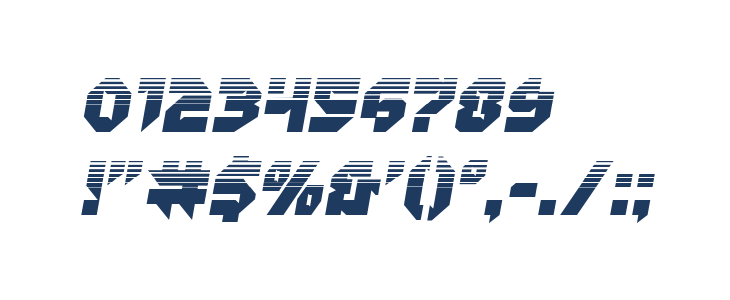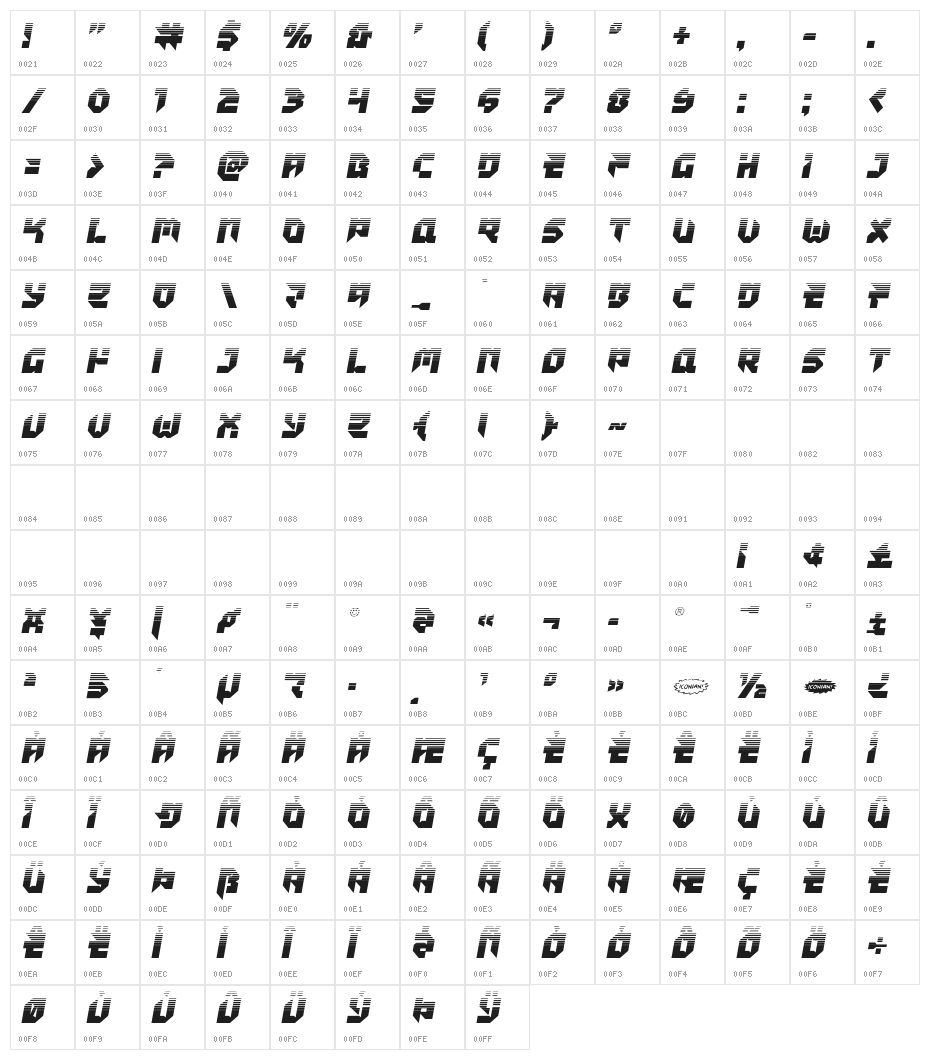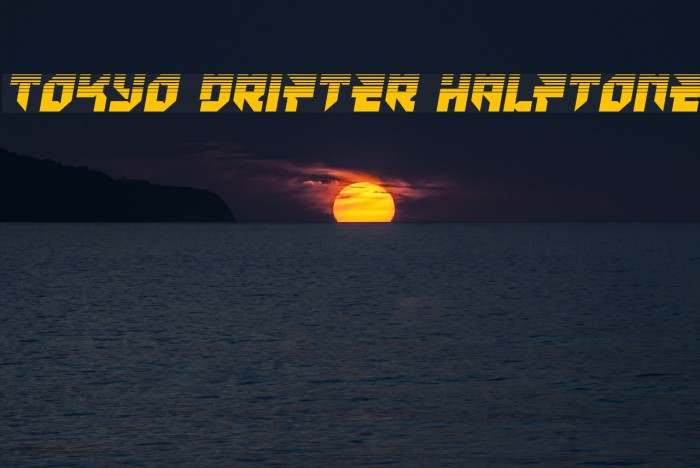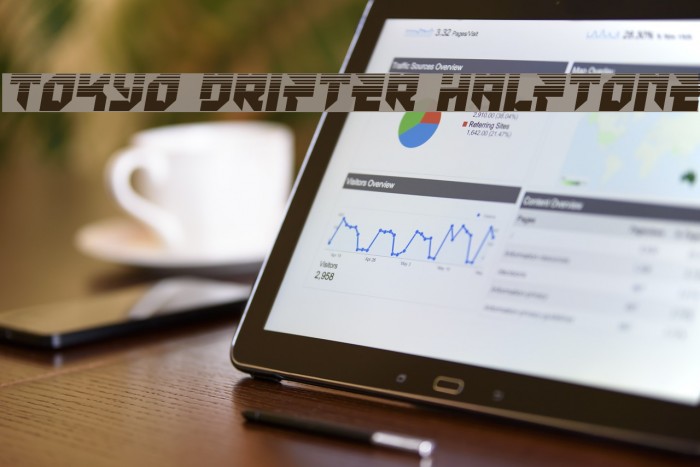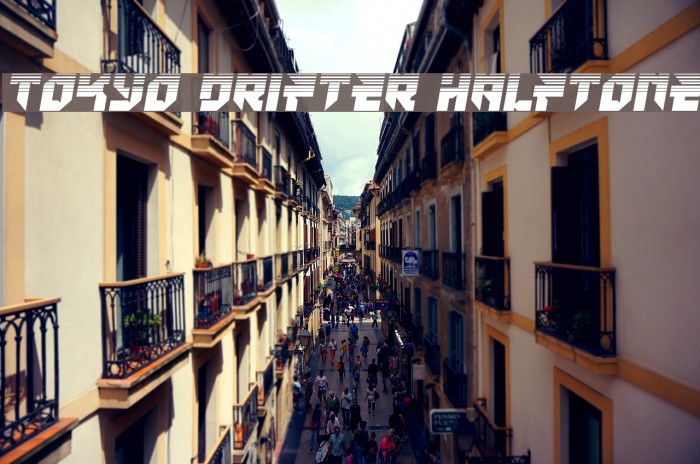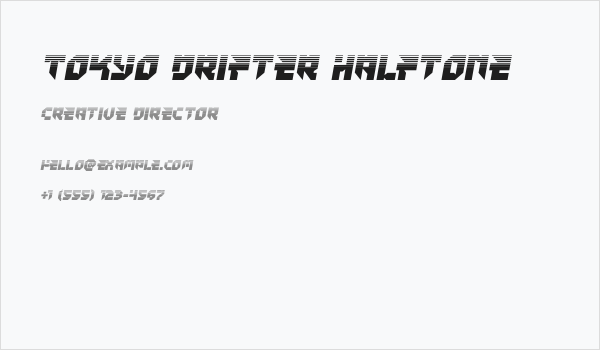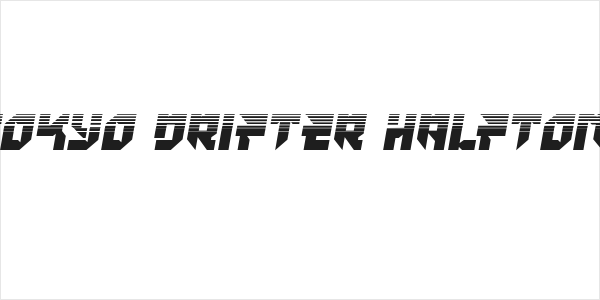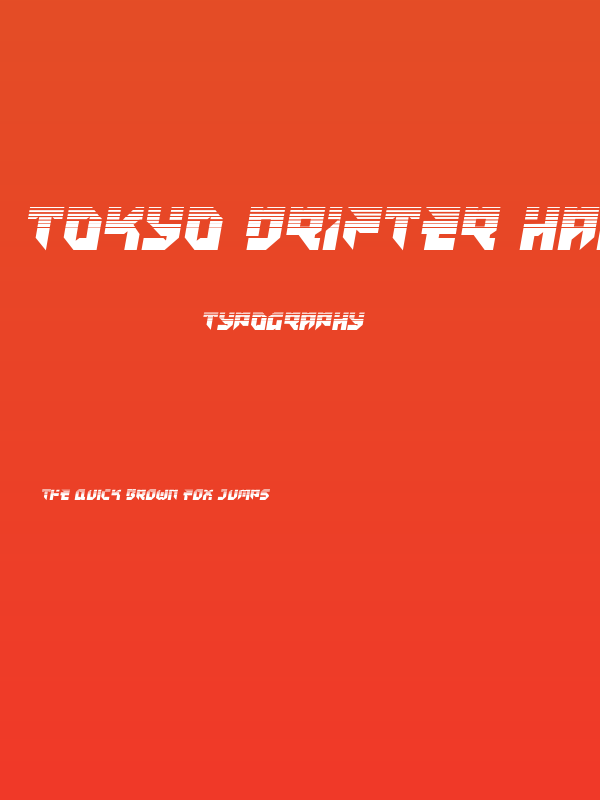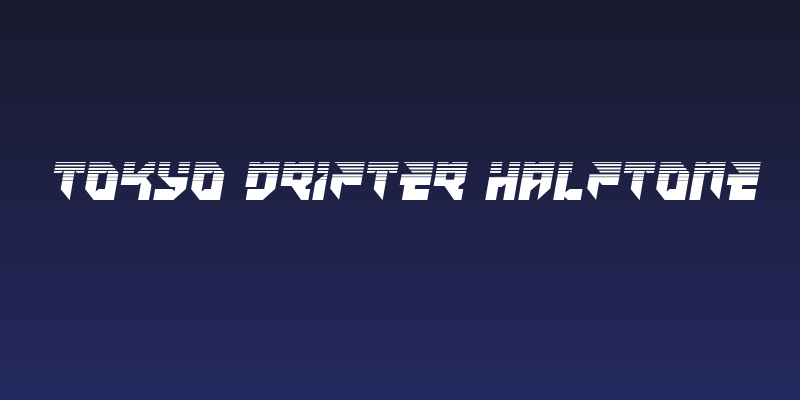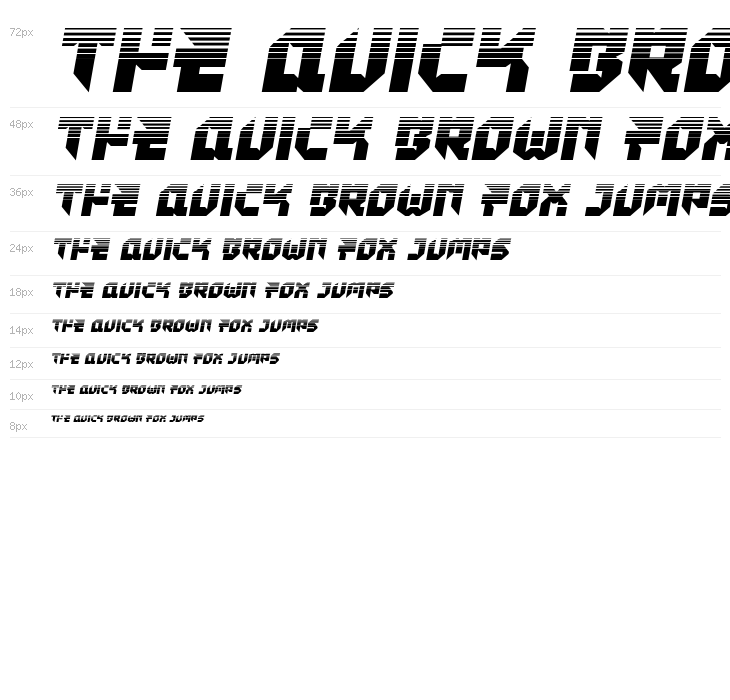
Tokyo Drifter Halftone Font
Tokyo Drifter Halftone Description
This font features a bold, futuristic design with a halftone effect that gives it a dynamic and edgy appearance. The characters are constructed with sharp angles and geometric shapes, creating a sense of movement and energy. The halftone pattern adds texture and depth, making it visually striking. It is ideal for projects that require a modern and bold aesthetic. The uppercase and lowercase letters maintain consistency in style, while the numbers and special characters complement the overall design. This font is perfect for creating eye-catching headlines, posters, and branding materials.
| Proposed Projects | Ideal for futuristic branding, sci-fi posters, video game titles, and dynamic advertising campaigns. |